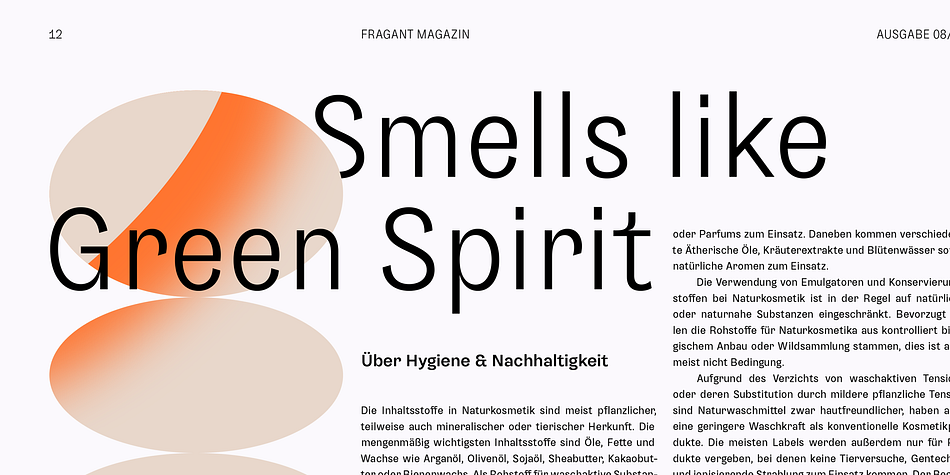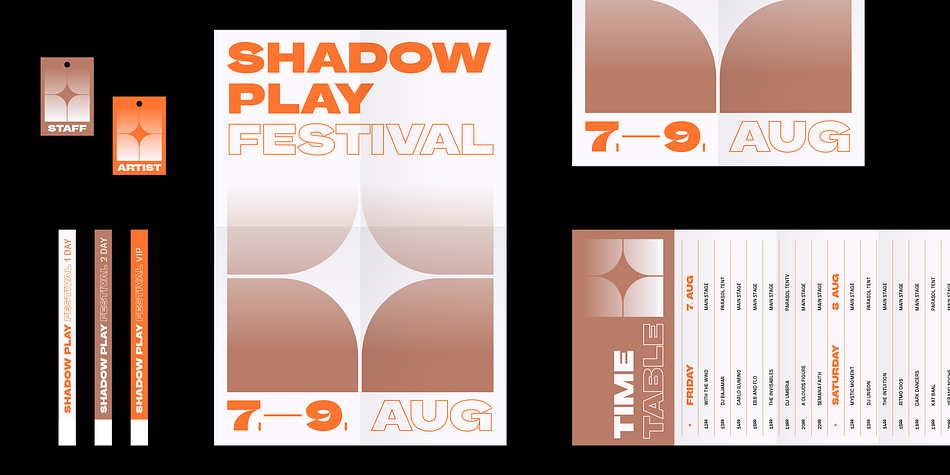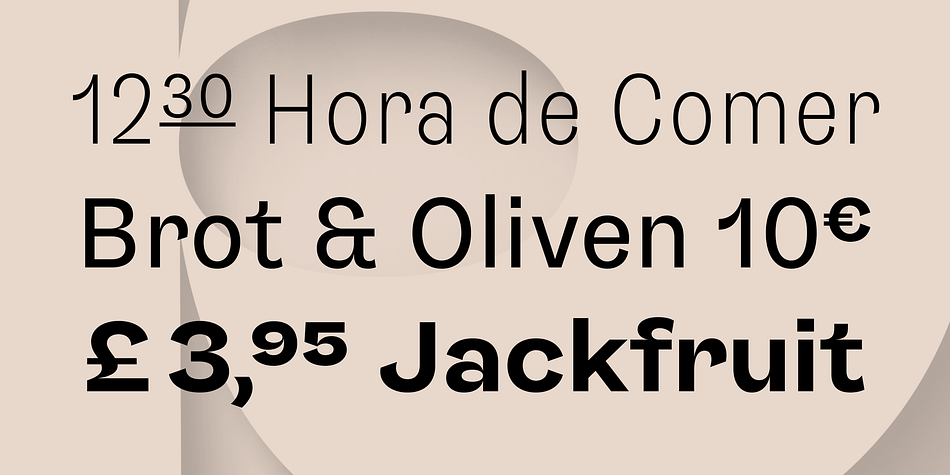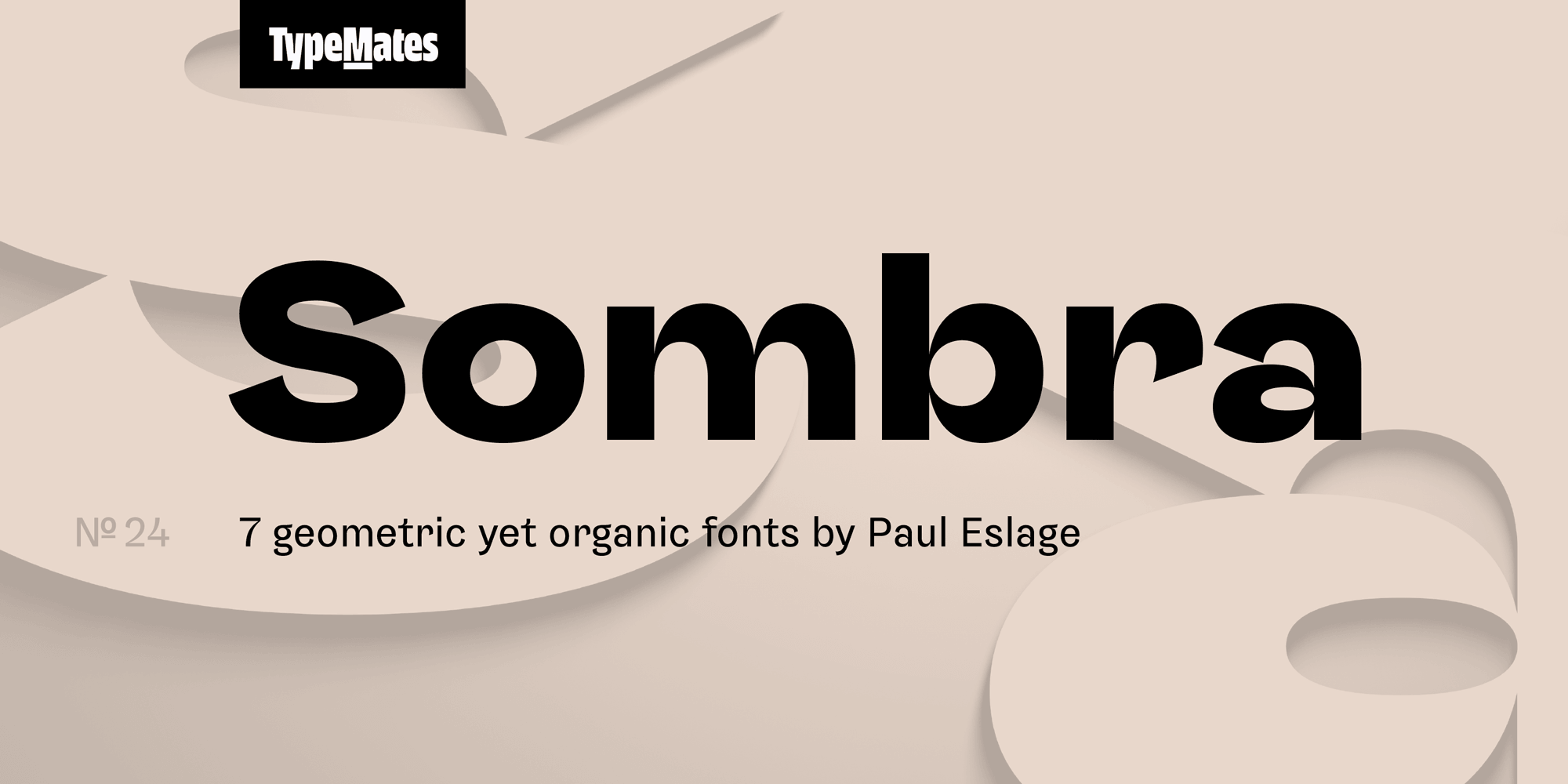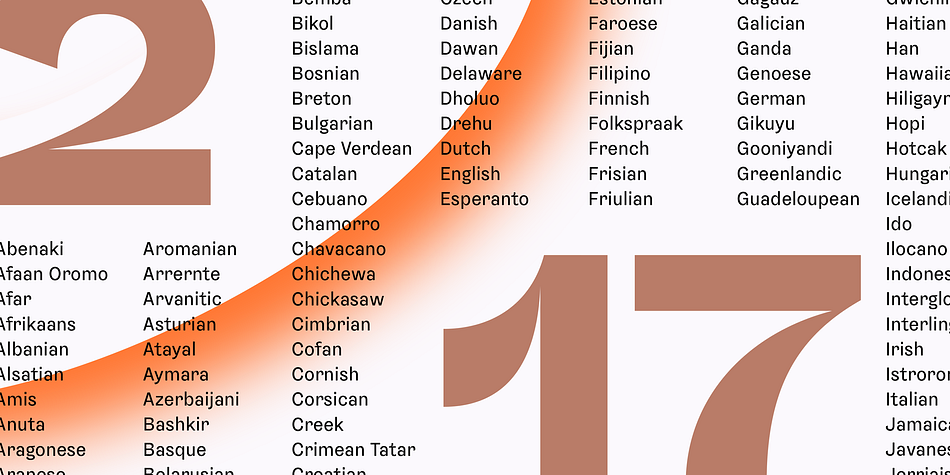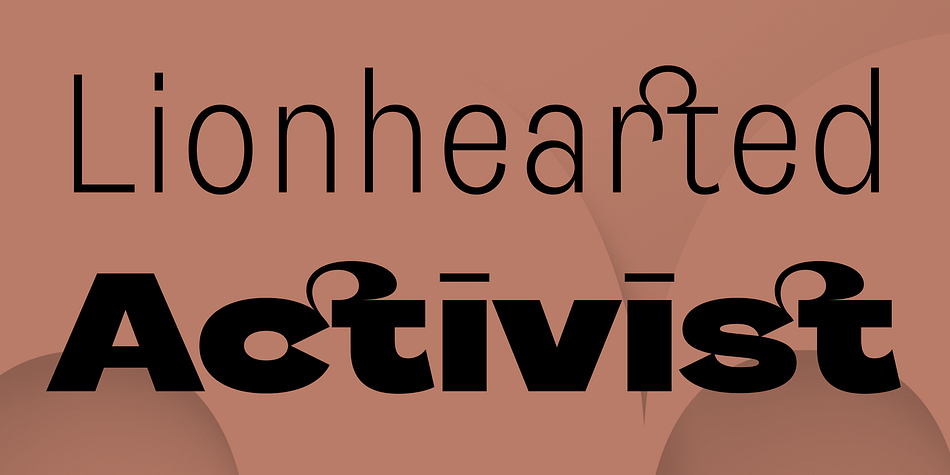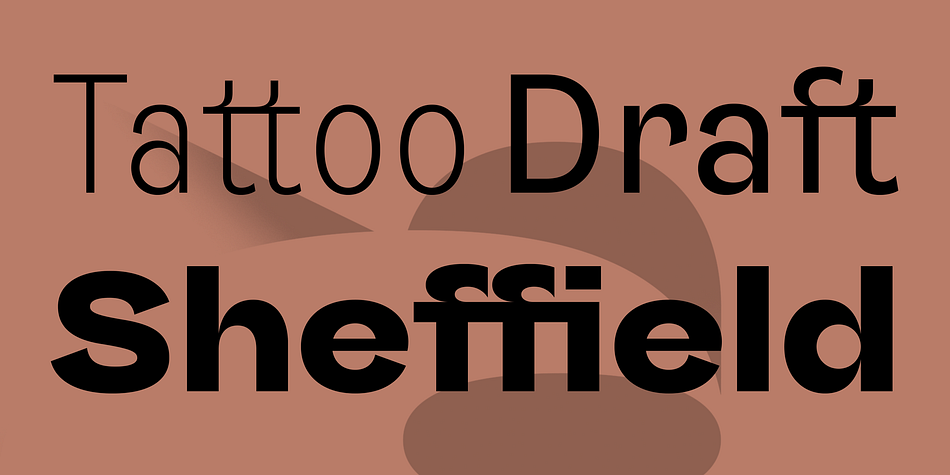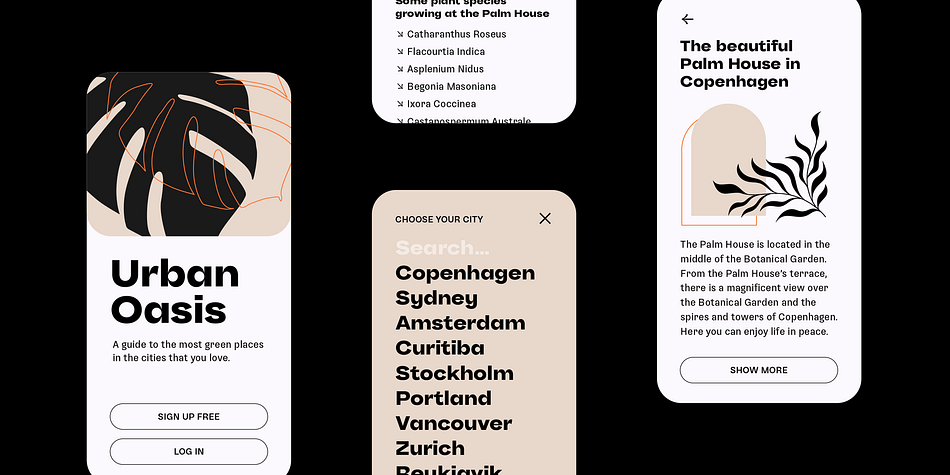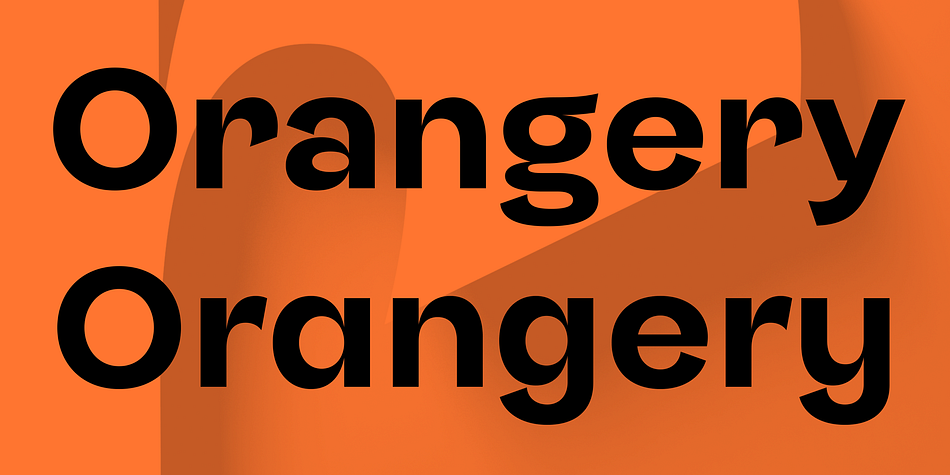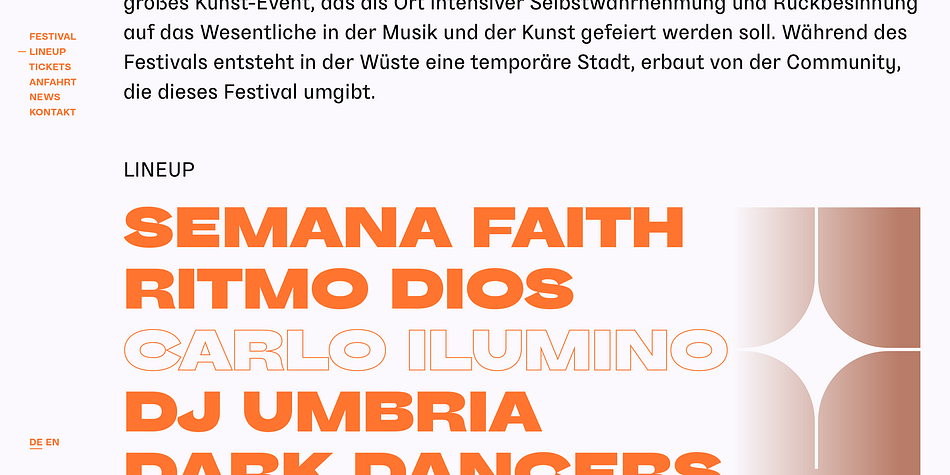
Designed by Paul Eslage, Sombra is a sans serif font family. This typeface has seven styles and was published by TypeMates.
Sombra is an organic grotesque typeface with flourishing spirit. It combines geometric structure with leafy, sharply swelling strokes and exaggerated incisions. This tension between organic momentum and the geometric construction means Sombra flowers in branding, editorial and packaging projects connected to nature, urban life and culture.
Across seven weights, Sombra sprouts from a condensed Light into an extended Black before revealing its most eccentric colour in the UltraBlack poster style. It’s a versatile choice for demanding typographic tasks: a condensed Thin for short synopses on the back of packaging, a Regular balanced for all kinds of text and a wide Black that boosts headlines.
How Sombra combines width and weight can bring an exciting tension to your design. And when you want an even more free-spirited attitude? There’s the ultra bold Poster style to top it all off. With overgrown terminals, hairline punctuation and symbols, it takes Sombra’s concept further.
With more than 680 glyphs in each style, Sombra supports over 140 Latin languages and comes packed with arrows, starry icons, circled numbers, compact figure settings, as well as standard and fancy ligatures. Plus, there are a bunch of stylistic sets including alternate glyphs to tweak your texts and wordmarks, and elevated decimal figures for compact price and time settings.
Somewhere between buildings and botany, Sombra finds balance in contrasts.